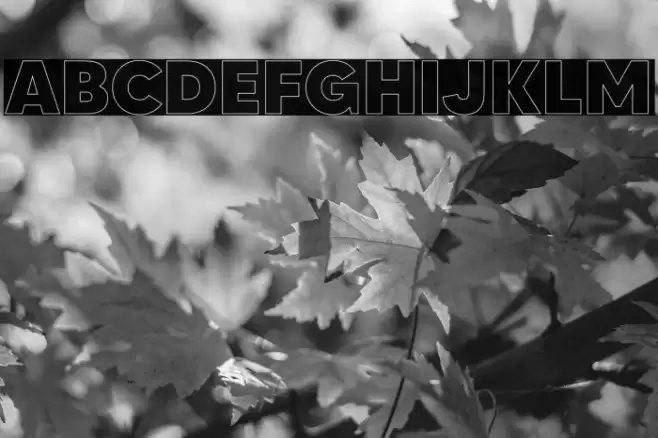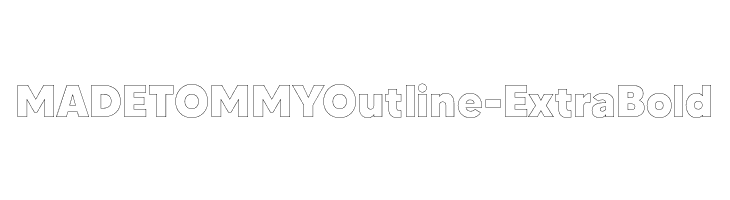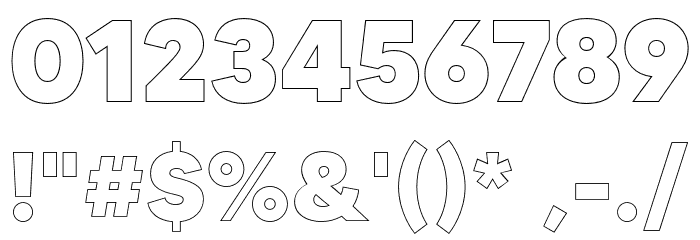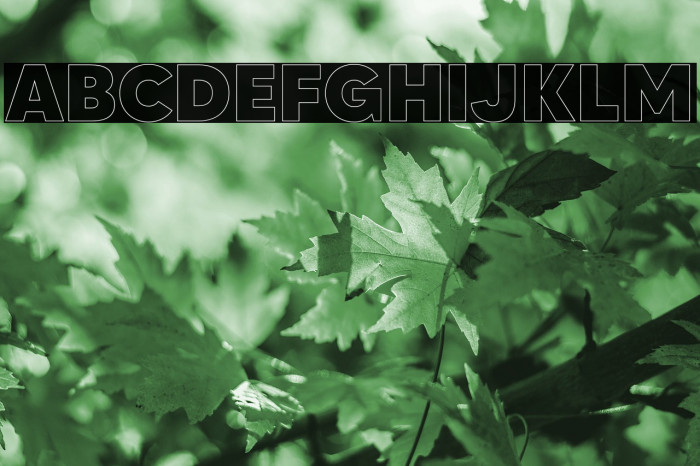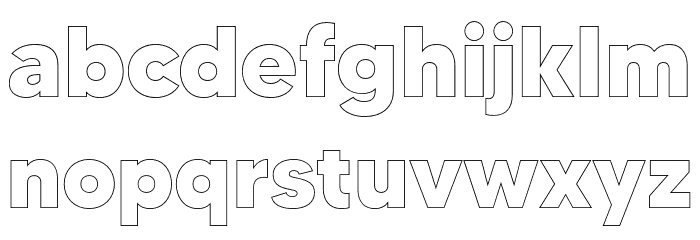
MADETOMMYOutline-ExtraBold Font
MADETOMMYOutline-ExtraBold Description
This font features a bold, outlined style with a modern and clean aesthetic. The characters are uppercase and lowercase alphabets, numerals, and a variety of special characters. The outline design gives it a distinctive look, making it stand out in various design contexts. The strokes are uniform in width, contributing to a balanced and harmonious appearance. The font's geometric shapes and even spacing enhance readability while maintaining a stylish and contemporary feel. It's ideal for projects that require a strong visual impact without overwhelming the viewer.
A bold, outlined font with a modern and clean aesthetic from Uncategorized fonts.
- Proposed Projects: Ideal for headlines, posters, branding, and advertising where a strong visual impact is needed.